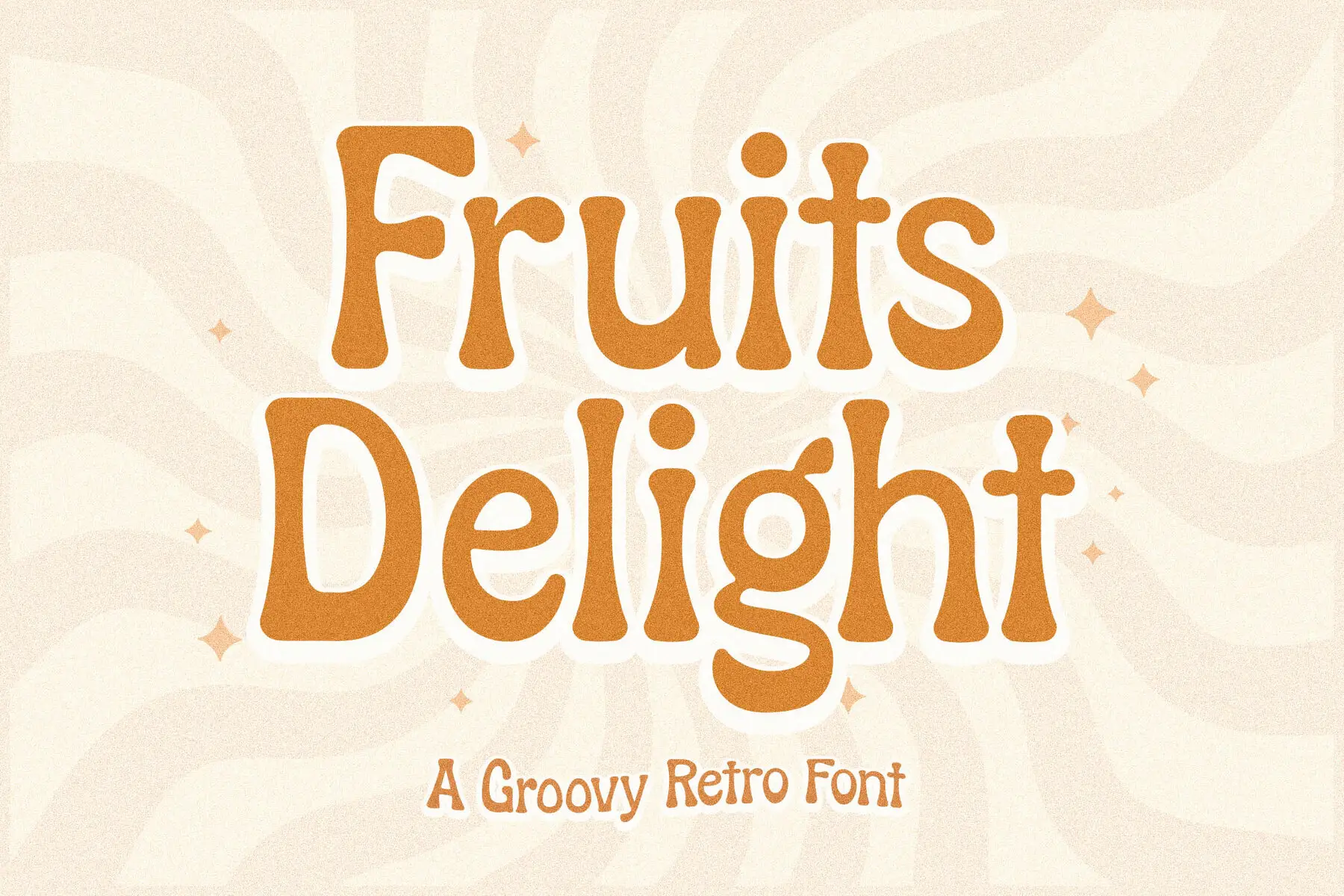
Fruits Delight Font
Introducing the Fruits Delight Typeface, a modern serif with a classic edge. This unique typeface offers a sophisticated look, ideal for those looking to elevate the aesthetics of their design projects. Whether crafting a luxurious logo, designing a book or movie title, or creating a fashion magazine spread, Fruits Delight delivers elegance and style.Fruits Delight Typeface